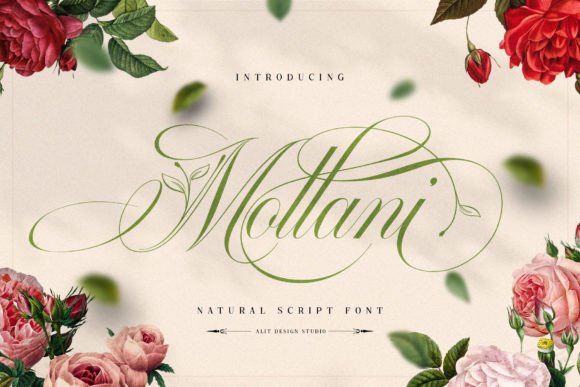
Unveil the Enchanting Mollani Font: A Timeless Masterpiece for Your Special Moments
Prepare to be captivated by Mollani, an exquisite script font that dances across your screen with grace and elegance. Inspired by the beauty of nature, Mollani's delicate strokes and captivating leaf ornaments will leave you spellbound. This remarkable font is a creation of Alit Design, a renowned artist with an eye for creating masterpieces that touch the soul.
Journey into a Realm of Elegance:
With Mollani, you hold the key to unlocking a world of sophistication and charm. Its meticulously crafted glyphs and swashes, accessible through PUA encoding, offer endless possibilities for creative expression. Let your imagination soar as you witness Mollani's enchanting presence grace your wedding invitations, branding designs, logos, posters, and social media posts.
The Perfect Harmony of Tradition and Modernity:
Mollani effortlessly blends the allure of traditional calligraphy with a contemporary twist. Its fluid lines and organic forms evoke a sense of nostalgia, while its subtle modern touches ensure it remains relevant and stylish. Experience the best of both worlds as you embrace Mollani's timeless appeal.
Create Enchanting Wedding Proposals:
If you seek to craft a marriage proposal that leaves a lasting impression, Mollani is your perfect partner. Its romantic aura and delicate details will set the stage for an unforgettable moment. Picture your heartfelt words penned in Mollani's graceful script, carrying the weight of your emotions with elegance and poise.
Ignite Your Inner Artist:
Whether you're a seasoned designer or just starting your creative journey, Mollani is your muse. Its versatility and charm make it an ideal choice for artists of all levels. Let your creativity flourish as you explore the endless possibilities that Mollani offers.